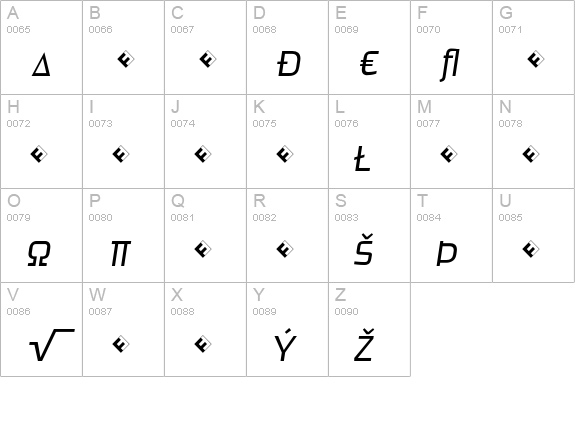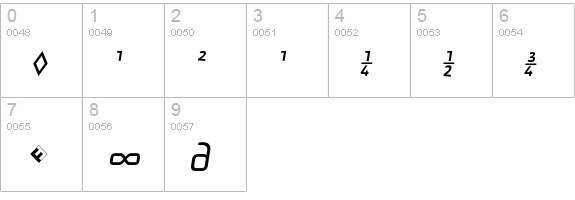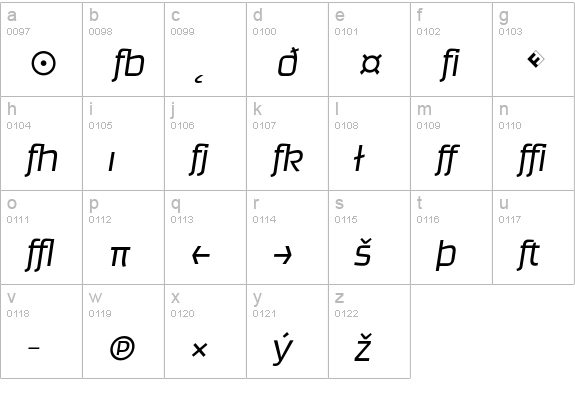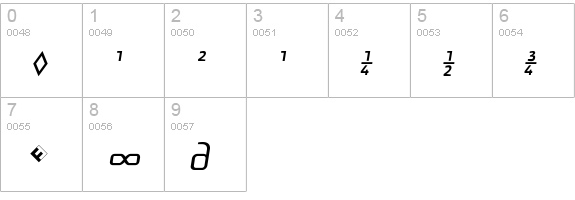
The Ginger-LightItalicExpert font is a beautifully designed typeface that exudes elegance and sophistication. Its delicate strokes and graceful curves make it perfect for adding a touch of refinement to any project. This font is ideal for use in branding, packaging, invitations, and more. Best of all, the Ginger-LightItalicExpert font is available for free download at FontsMarket.com. You can easily access this stunning typeface and elevate your designs with its unique charm. Don't miss out on the opportunity to enhance your creative projects with this exquisite font.